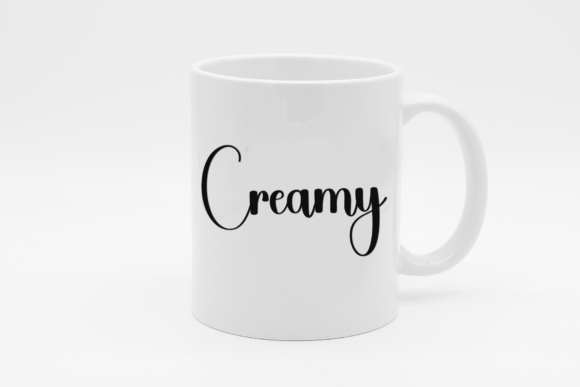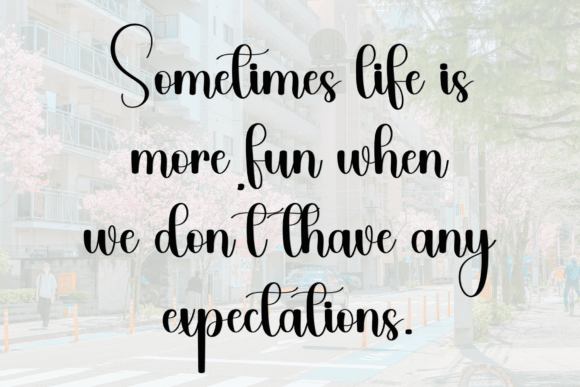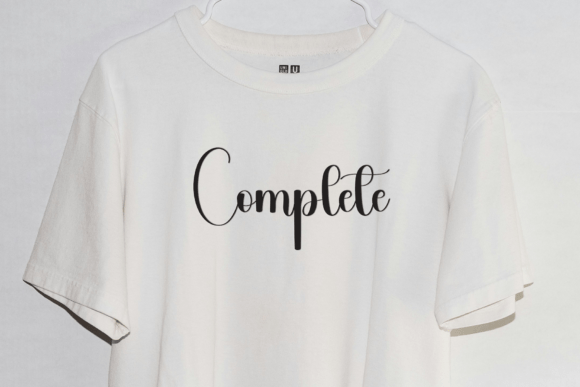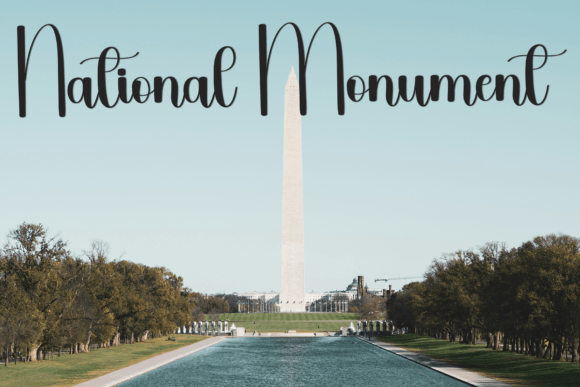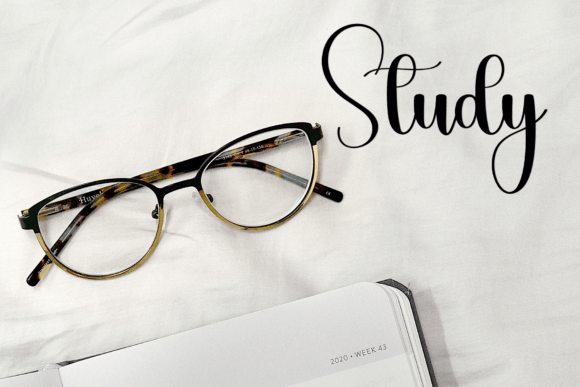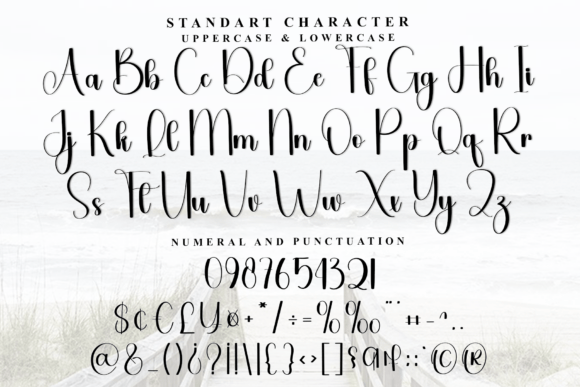
Introducing Diary Font: A Timeless Handwritten Treasure
Are you on the hunt for a font that adds a personal touch to your designs? Look no further than Diary Font, a lovely and timeless handwritten font that is sure to capture the hearts of designers and crafters alike. With its unique and beautiful touch, Diary Font is the perfect choice for creating eye-catching logos, branding, and quotes that stand out from the crowd.
Handwritten fonts have a way of adding a touch of warmth and personality to any design. They evoke feelings of nostalgia and intimacy, making them perfect for projects that require a personal touch. Diary Font is no exception, with its delicate and charming lettering that is reminiscent of a handwritten diary entry.
What Makes Diary Font Special?
So, what sets Diary Font apart from other handwritten fonts? For starters, every letter has a unique and beautiful touch that makes it truly stand out. The font is carefully crafted to ensure that each letter is distinct and full of character, making it perfect for creating designs that are both visually appealing and meaningful.
Uses for Diary Font
Diary Font is an incredibly versatile font that can be used for a wide range of design projects. Here are just a few ideas to get you started:
- Logos: Create a memorable and eye-catching logo for your business or brand with Diary Font.
- Branding: Use Diary Font to add a personal touch to your brand’s marketing materials, such as brochures, flyers, and social media graphics.
- Quotes: Add a touch of elegance and sophistication to your quotes and inspirational messages with Diary Font.
- Stationery: Create beautiful and unique stationery, such as greeting cards, invitations, and letters, with Diary Font.
Tips for Using Diary Font
Here are a few tips for getting the most out of Diary Font:
- Keep it simple: Diary Font is a beautiful font, but it can be overwhelming if overused. Keep your design simple and elegant to let the font shine.
- Experiment with colors: Diary Font looks great in a variety of colors, so don’t be afraid to experiment and find the perfect hue for your design.
- Mix and match: Combine Diary Font with other fonts to create a unique and visually appealing design.
Why Designers and Crafters Love Diary Font
Diary Font is a favorite among designers and crafters for a number of reasons:
- Unique and beautiful: Diary Font is a truly unique and beautiful font that adds a touch of elegance and sophistication to any design.
- Versatile: Diary Font can be used for a wide range of design projects, from logos and branding to quotes and stationery.
In conclusion, Diary Font is a timeless handwritten font that is sure to capture the hearts of designers and crafters alike. With its unique and beautiful touch, Diary Font is the perfect choice for creating eye-catching logos, branding, and quotes that stand out from the crowd. Whether you’re a seasoned designer or a crafty DIY enthusiast, Diary Font is a must-have font that is sure to inspire and delight.